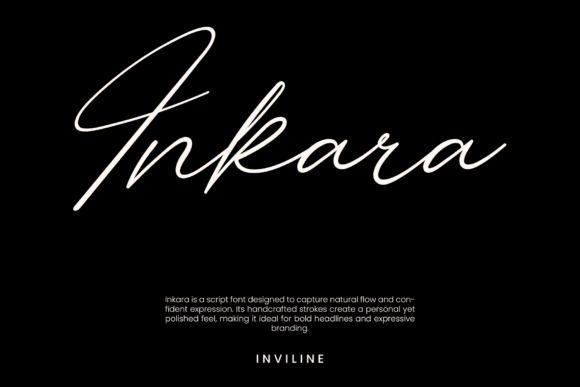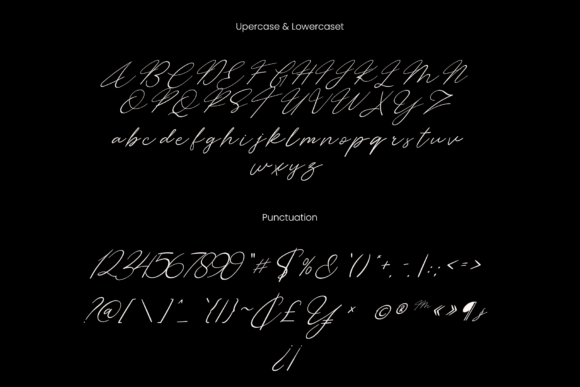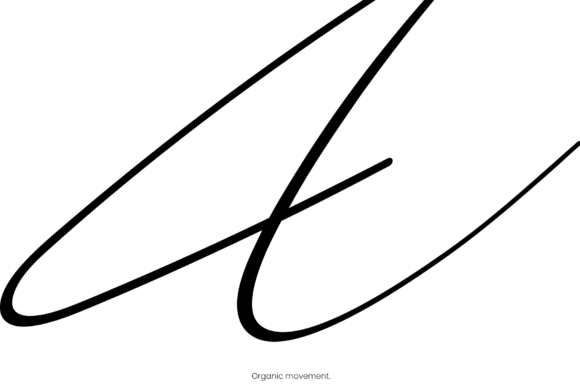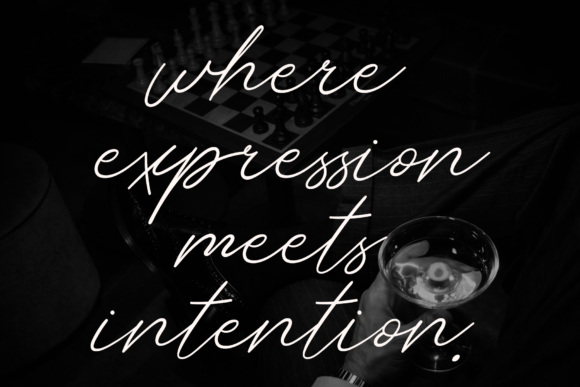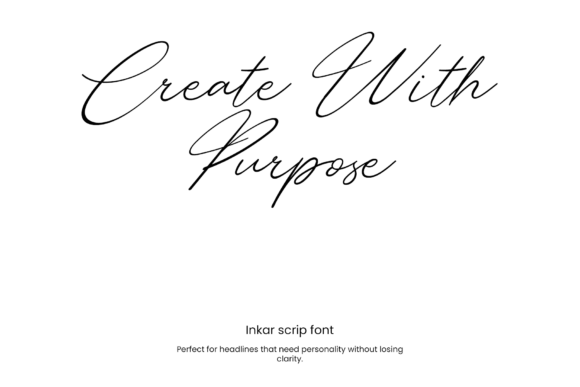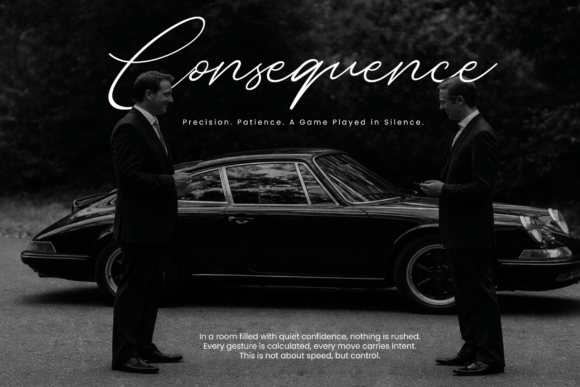
Introduction to Inkara Font
Remember the moment you stumbled upon the perfect font for your design project? The thrill of seeing your creative vision come to life with just the right typography? For designers, that ‘aha’ moment is priceless. And, for those who love vintage cinema and timeless elegance, there’s a new treasure to discover: the Inkara Font.
This refined signature script is a masterclass in evoking the mystique of handwritten titles from the golden screen era. With its graceful strokes, authentic ligatures, and multilingual support, the Inkara Font elevates any project with a classic, handcrafted charm. Whether you’re working on film posters, packaging design, or editorial layouts, this design resource is sure to add a touch of sophistication and glamour.
Key Features of Inkara Font
- High-quality design resource ideal for creative projects, including logos, branding, and marketing materials.
- Designed with a clean and modern aesthetic, perfect for contemporary design projects.
- Unique characteristics include its versatility and adaptability, making it a great choice for designers working on a wide range of creative projects.
Honest Review: Inkara Font
As a designer, I’m always on the lookout for high-quality design resources that can elevate my creative projects. The Inkara Font is a great find, and I’m excited to share my honest review with you.
- ✨ The Inkara Font has a clean and modern design aesthetic that’s perfect for a variety of creative projects.
- ✨ The font is highly legible, even on small screens and at various font sizes.
One of the standout features of the Inkara Font is its transparent background, which makes it easy to customize and integrate into your design.
- ⚠️ The Inkara Font may not be suitable for formal or traditional designs, as it has a more modern and edgy feel.
- ⚠️ The font may not be as versatile as some other options, as it’s primarily designed for digital use.
Overall, I’m impressed with the Inkara Font and would definitely recommend it for creative projects that require a modern and sleek look.
Inkara Font
Tips for Getting the Most Out of Inkara Font
Here are a few tips for getting the most out of the Inkara Font:
- Use the font with a transparent background to create a clean and modern design.
- Combine the font with other design elements to create a unique and creative design.
The Inkara Font is perfect for a variety of design projects, including:
- Website design and development
- Social media graphics and advertising